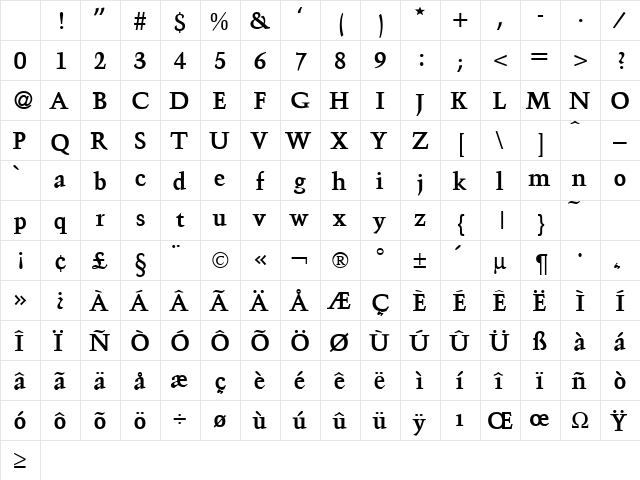
Complete Troubadour Bold glyph index. Displaying only characters natively supported by Troubadour Bold font.
Troubadour is a composed and adaptable typeface that performs quietly and consistently across a wide range of design contexts. Its bold stroke weight gives it real presence on the page.